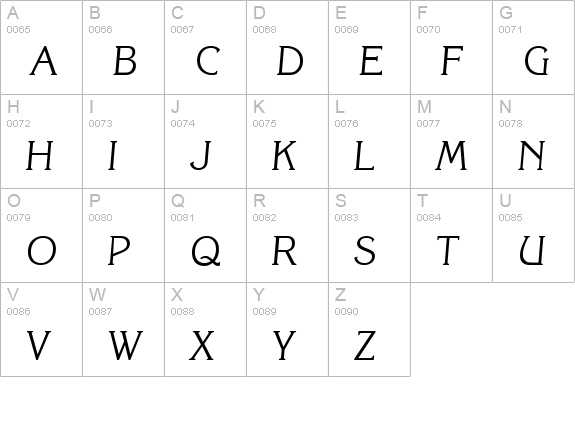
Korinth-LightIta is a sleek and modern font that exudes elegance and sophistication. Its delicate and slender letterforms give off a sense of refinement and style, making it perfect for a wide range of design projects. Whether you're creating a wedding invitation, a business card, or a logo, Korinth-LightIta will add a touch of class to your work. What sets Korinth-LightIta apart is that it is not only beautiful but also free to download. That's right, you can get your hands on this stunning font at no cost on FontsMarket.com. This means you can elevate your designs without breaking the bank, making Korinth-LightIta a valuable addition to your font collection. With its effortless charm and timeless appeal, Korinth-LightIta is sure to become a go-to choice for designers looking to add a touch of sophistication to their projects. Download it today and see for yourself the beauty and versatility of this exquisite font.